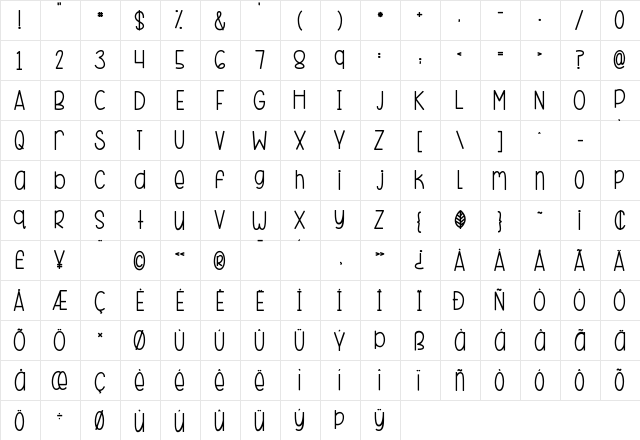
KG Beneath Your Beautiful Chunk Regular
| Foundry | Kimberly Geswein |
| Designer | Kimberly Geswein |
Design Context for KG Beneath Your Beautiful Chunk Typeface
KG Beneath Your Beautiful Chunk takes a measured approach to typography — its balanced proportions and neutral character make it a reliable workhorse for both digital and print work.